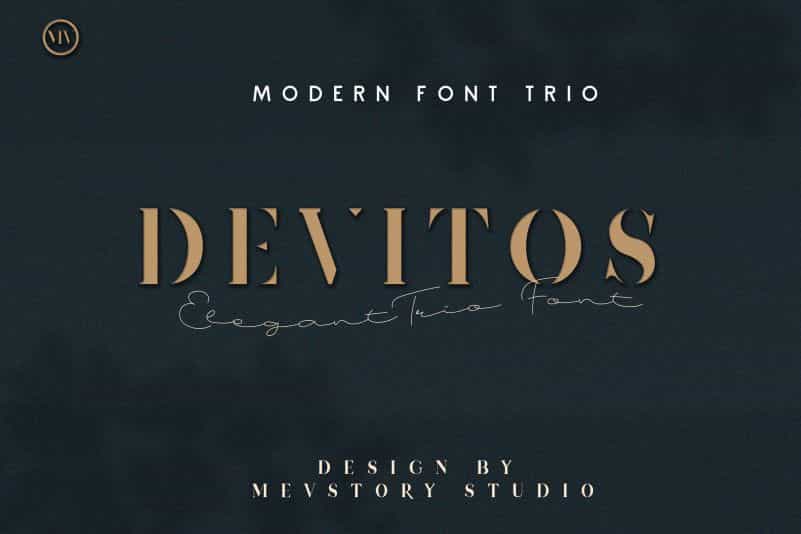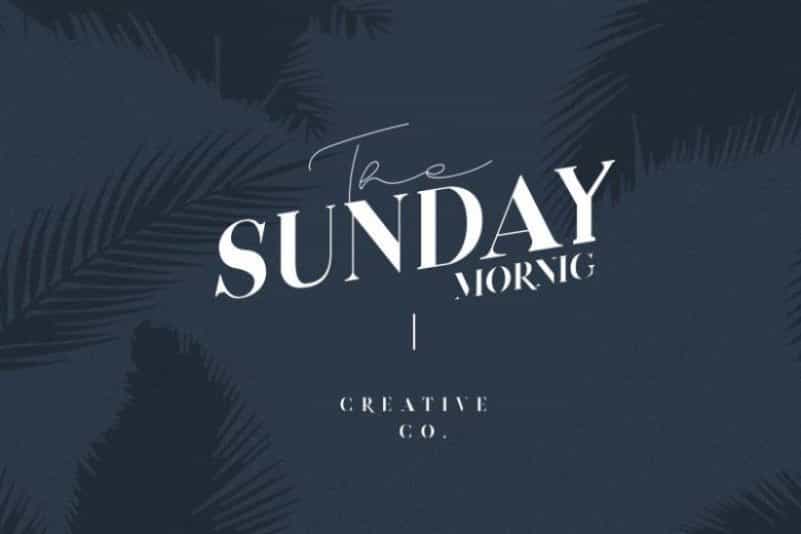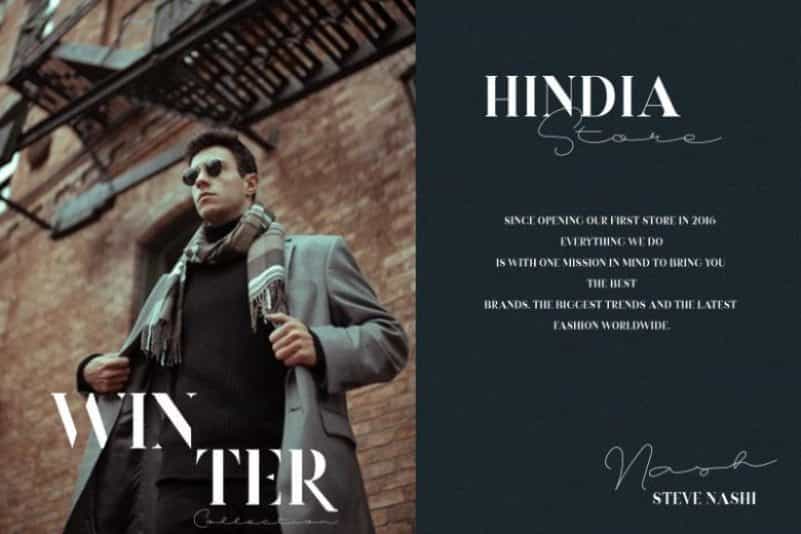
Devitos is a contemporary, graceful and imaginative serif font. It has the following features: uppercase, lowercase, number, punctuation and symbols along with some other glyphs. Devitos is the perfect typeface for; logotypes, business cards, labels, flyers, apparel, stationery, brochures headlines invitations , wedding designs social media posts, special events and more.